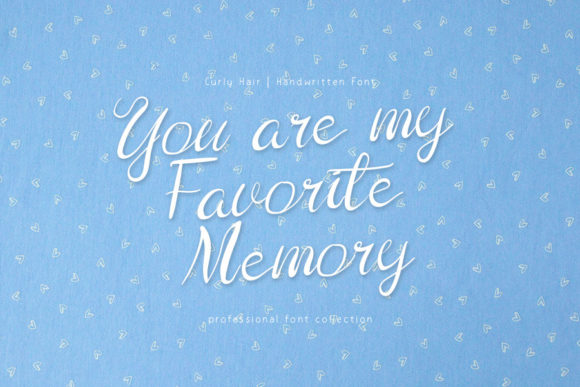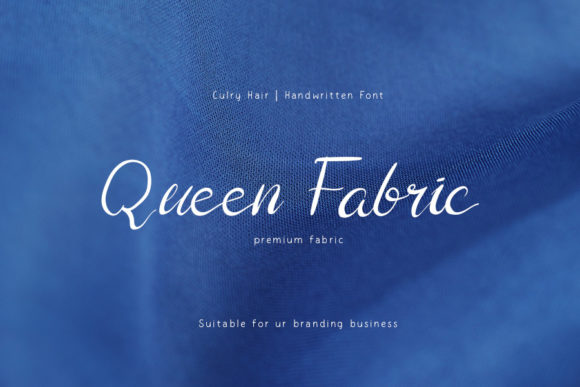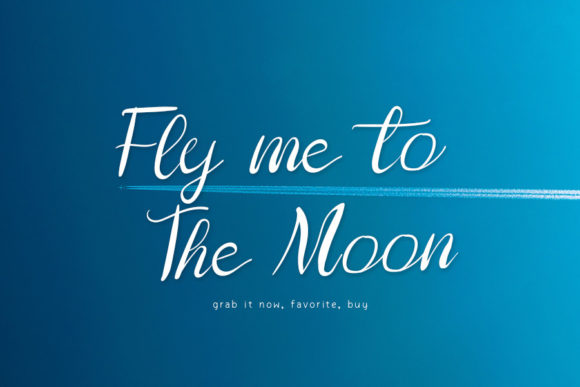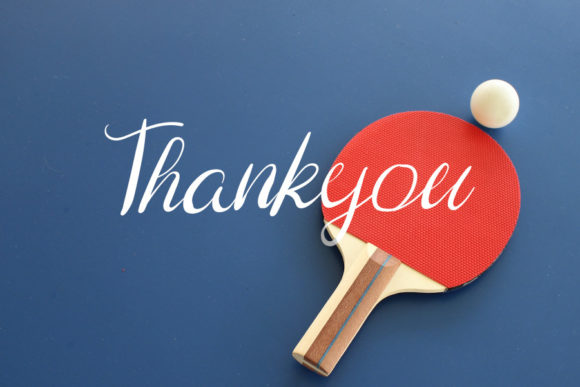
Curly Hair Font: The Sweet and Pretty Handwriting Font for Your Designs
Are you looking for a font that can add a touch of sweetness and elegance to your designs? Look no further than the Curly Hair Font! This beautiful handwriting font is perfect for a variety of design projects, from branding to greeting cards, wedding cards, and more. In this article, we’ll take a closer look at the Curly Hair Font and explore its features, benefits, and uses.
What is Curly Hair Font?
Curly Hair Font is a sweet and pretty looking handwriting font that is designed to add a personal touch to your designs. Its incredibly versatile style makes it perfect for a wide range of projects, from formal to informal designs. The font features beautiful, flowing script letters with a curly and whimsical feel, making it perfect for designs that require a touch of elegance and sophistication.
Features of Curly Hair Font
The Curly Hair Font has several features that make it a great choice for designers and crafters. Some of its key features include:
- Handwritten style: The Curly Hair Font has a beautiful, handwritten style that gives it a personal and unique feel.
- Curly and whimsical: The font features curly and whimsical letters that add a touch of elegance and sophistication to your designs.
- Versatile: The Curly Hair Font is incredibly versatile and can be used for a wide range of design projects, from formal to informal designs.
- Easy to read: Despite its curly and whimsical style, the Curly Hair Font is easy to read, making it perfect for designs that require a clear and legible font.
Benefits of Using Curly Hair Font
The Curly Hair Font offers several benefits to designers and crafters. Some of its key benefits include:
- Adds a personal touch: The Curly Hair Font adds a personal touch to your designs, making them stand out from the crowd.
- Perfect for branding: The font is perfect for branding projects, as it can help to create a unique and memorable brand identity.
- Ideal for greeting cards and wedding cards: The Curly Hair Font is also ideal for greeting cards and wedding cards, as it adds a touch of elegance and sophistication to these types of designs.
Uses of Curly Hair Font
The Curly Hair Font can be used for a wide range of design projects, including:
- Branding: The font is perfect for branding projects, such as logos, business cards, and letterheads.
- Greeting cards: The Curly Hair Font is ideal for greeting cards, including birthday cards, Christmas cards, and thank-you cards.
- Wedding cards: The font is also perfect for wedding cards, including wedding invitations, save-the-date cards, and thank-you cards.
- Social media graphics: The Curly Hair Font can be used to create social media graphics, such as Facebook posts, Instagram posts, and Twitter headers.
Tips for Using Curly Hair Font
Here are a few tips for using the Curly Hair Font:
- Use it sparingly: While the Curly Hair Font is beautiful, it can be overwhelming if used too much. Use it sparingly to add a touch of elegance to your designs.
- Pair it with a simple font: Pair the Curly Hair Font with a simple font to create a beautiful contrast.
- Experiment with different colors: Experiment with different colors to find the perfect color for your design.
In conclusion, the Curly Hair Font is a beautiful and versatile handwriting font that is perfect for a wide range of design projects. Its curly and whimsical style adds a touch of elegance and sophistication to your designs, making it perfect for branding, greeting cards, wedding cards, and more. With its easy-to-use features and benefits, the Curly Hair Font is a great choice for designers and crafters who want to create spectacular designs.